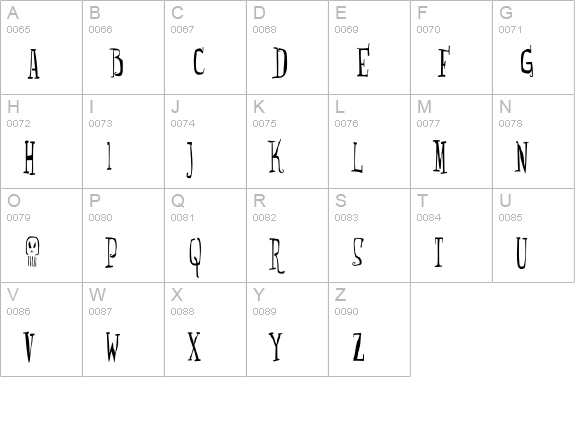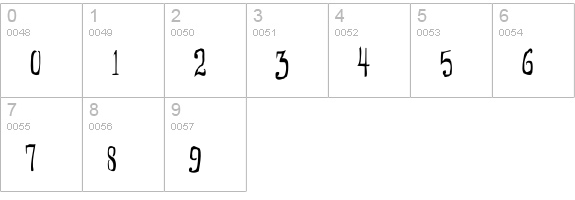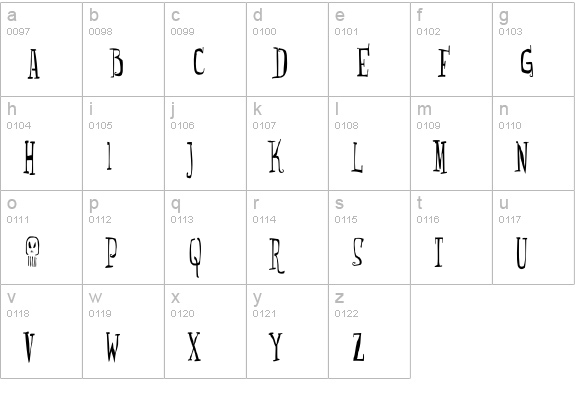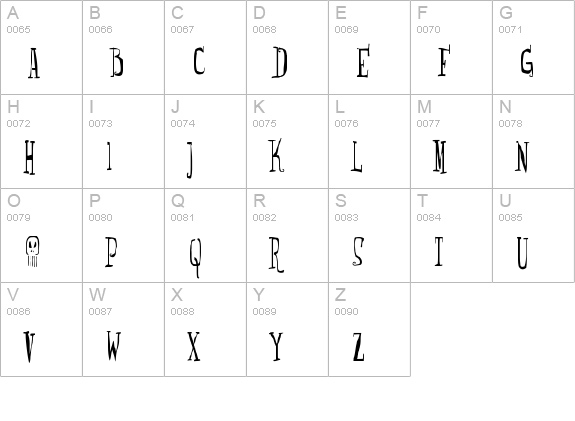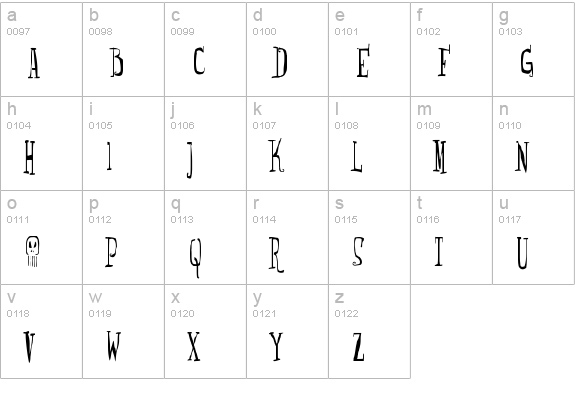
Monsterfreak Font Details
Monsterfreak font is a unique and eye-catching typeface that is sure to make a bold statement in any design project. With its quirky and playful appearance, this font is perfect for adding a touch of fun and creativity to your designs. Monsterfreak font is available for free download at FontsMarket.com, making it easily accessible for all designers looking to add a touch of personality to their projects. Whether you're working on a poster, logo, or social media graphic, Monsterfreak font is sure to grab attention and leave a lasting impression. Download this free font today and unleash your inner monster creativity!